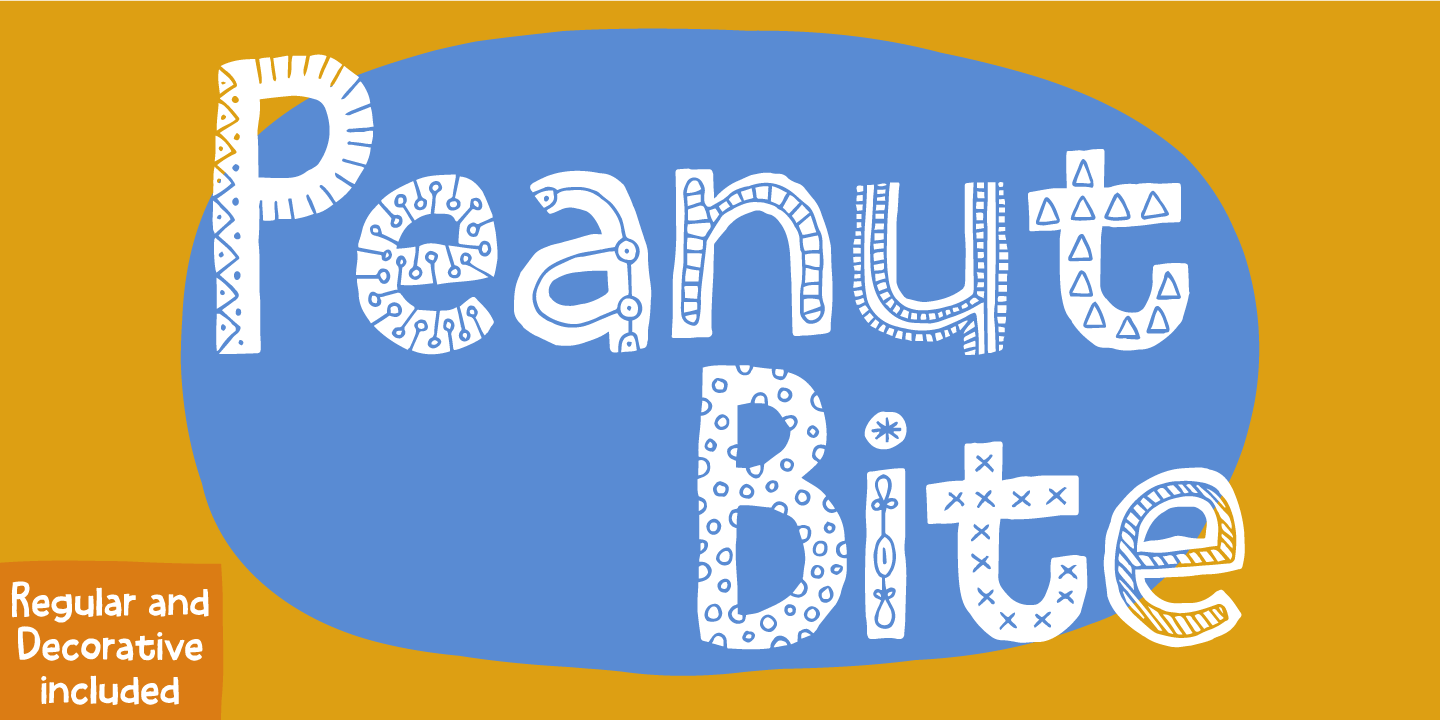
Peanut Bite Font is perfect for quirky snack food packaging, playful candy store branding, fun restaurant menus, bite-sized treat advertisements, nutty bakery signage, casual food truck graphics, crunchy product labels, and wholesome family dining identities. This delightfully textured typeface excels in food industry applications, snack branding designs, and any project requiring crunchy personality that captures the essence of satisfying snacks and bite-sized delights through playful visual texture.
What makes Peanut Bite Font exciting is its incredible ability to embody the satisfying crunch and wholesome appeal of favorite snacks through delightfully textured letterforms that seem to carry the essence of nutty goodness and bite-sized satisfaction. The font features playfully crafted characters with crunchy textures and bite-inspired proportions that evoke feelings of comfort food and satisfying snacks, making it ideal for brands seeking to establish connections with snack lovers and communicate through appetizing visual language. Its crunchy presence ensures immediate recognition of snack authenticity and wholesome appeal.
Peanut Bite Font family includes multiple weights and styles: Regular, Bold, Light, Medium, Italic variations, and textured alternates with crunchy embellishments and bite-inspired decorative elements. Each family member maintains the distinctive snack character while offering comprehensive design options for food campaigns, from appetizing descriptive text to crunchy headlines that establish snack authority and wholesome credibility through delightfully textured typography.
Whether you're designing snack food brands or creating appetizing culinary campaigns, Peanut Bite Font Free Download provides the perfect typography solution for food branding needs. This font transforms ordinary text into satisfying snack expressions that communicate wholesome crunch and bite-sized delight. Snack food companies and casual dining brands choose this typeface for its ability to convey nutty satisfaction through playfully crafted letterforms that crunch through designs with appetizing charm and celebrate the simple pleasure of satisfying snacks.